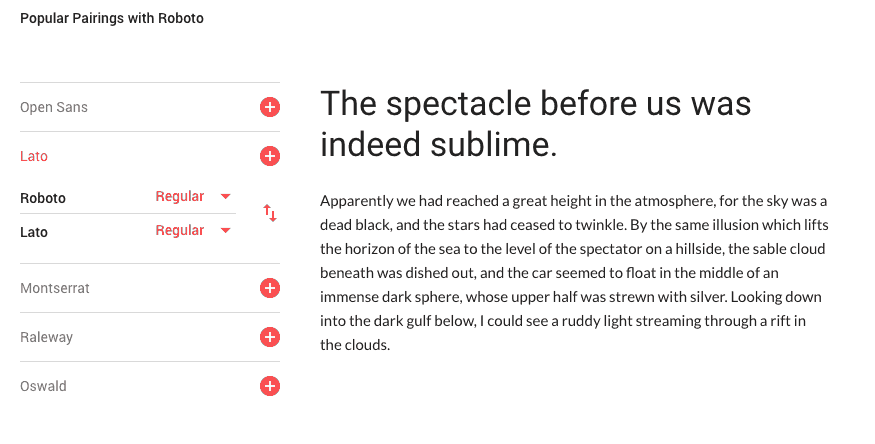
It s fair to say google fonts are popular.
In 2014 roboto was redesigned for android 5 0 lollipop.
Web fonts like alegreya merriweather nunito roboto and quattrocento include a large range of characters weights and styles that qualify them as superfamilies and these five superfamilies now support cyrillic characters as well.
Oʊ is a neo grotesque sans serif typeface family developed by google as the system font for its mobile operating system android and released in 2011 for android 4 0 ice cream sandwich.
Roboto r oʊ ˈ b ɒ t.
Just like latin there are certain cyrillic characters used only in a few languages such as.